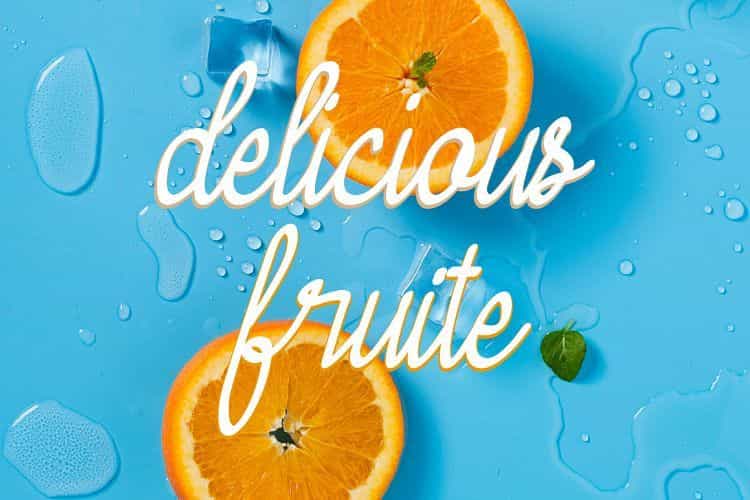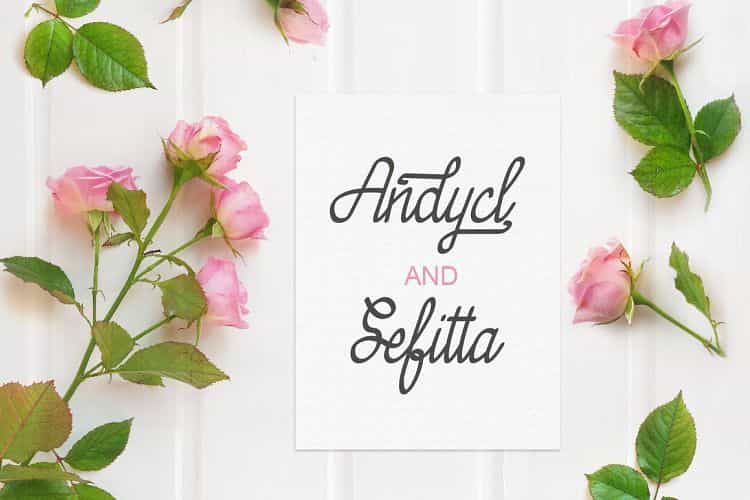
Discover Selamat Font, part of the Calligraphy Handwritten collection—a versatile and unique font perfect for adding a personal touch to your projects. Download it for free and enjoy crafting designs with style, from invitations to social media posts. This font is available exclusively for personal use, giving you the freedom to create without limits. Unlock your creativity with Selamat Font today!
Selamat Font is a beautiful font with a friendly and elegant look but with a unique feel. Be captivated by its beauty and the elegance that it adds to the figure. This typeface is perfect for you who needs a typeface for headline, logotype, apparel, invitation, branding, packaging, advertising etc.